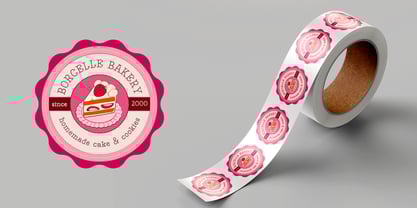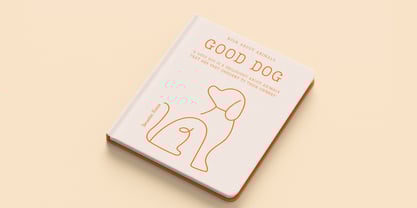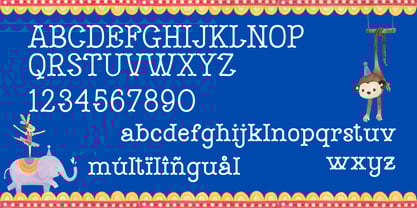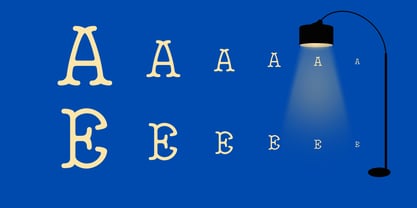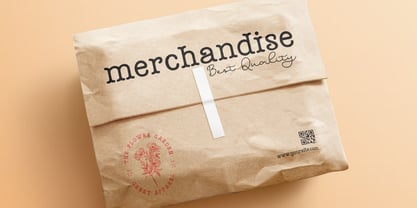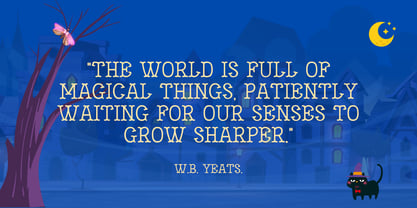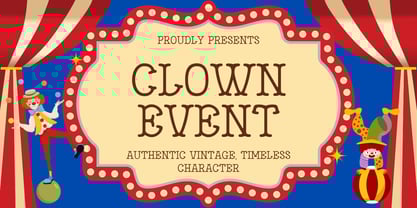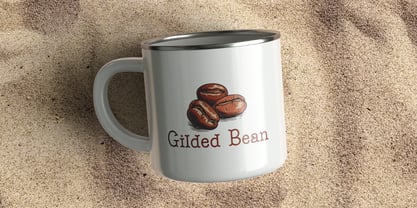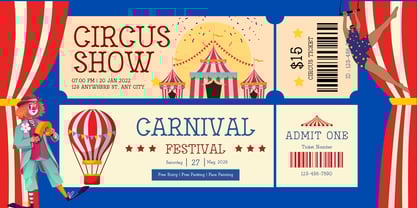
Clown Event
by Beary
The Clown Event Font Family was designed by Dian Haniffan Hadi and published by Beary. Clown Event contains 1 styles. More about this family
Clown Event is a tribute to the golden age of print, meticulously remastered for the digital era. This typeface channels the robust spirit of 19th-century American wood type and the distinct, tactile imperfections of vintage typewriter keys. The result is a display face brimming with historical character, yet engineered for contemporary performance.
Each of the 219 glyphs features a unique, non-repeating ink texture, simulating the authentic pressure variations of traditional letterpress printing. With its sturdy serifs and decisive terminals, Clown Event offers exceptional readability at display sizes, making it a powerful tool for conveying both heritage and confidence.
Presented in a single, definitive workhorse display weight, Clown Event is designed to deliver maximum impact without compromise. Its comprehensive character set is built to serve a wide range of creative projects, from branding to editorial headlines.
This typeface is the ideal choice for design studios and brands seeking a display font with a strong historical narrative, perfect for logotypes, packaging, headlines, and identity systems that aim to be both memorable and timeless.